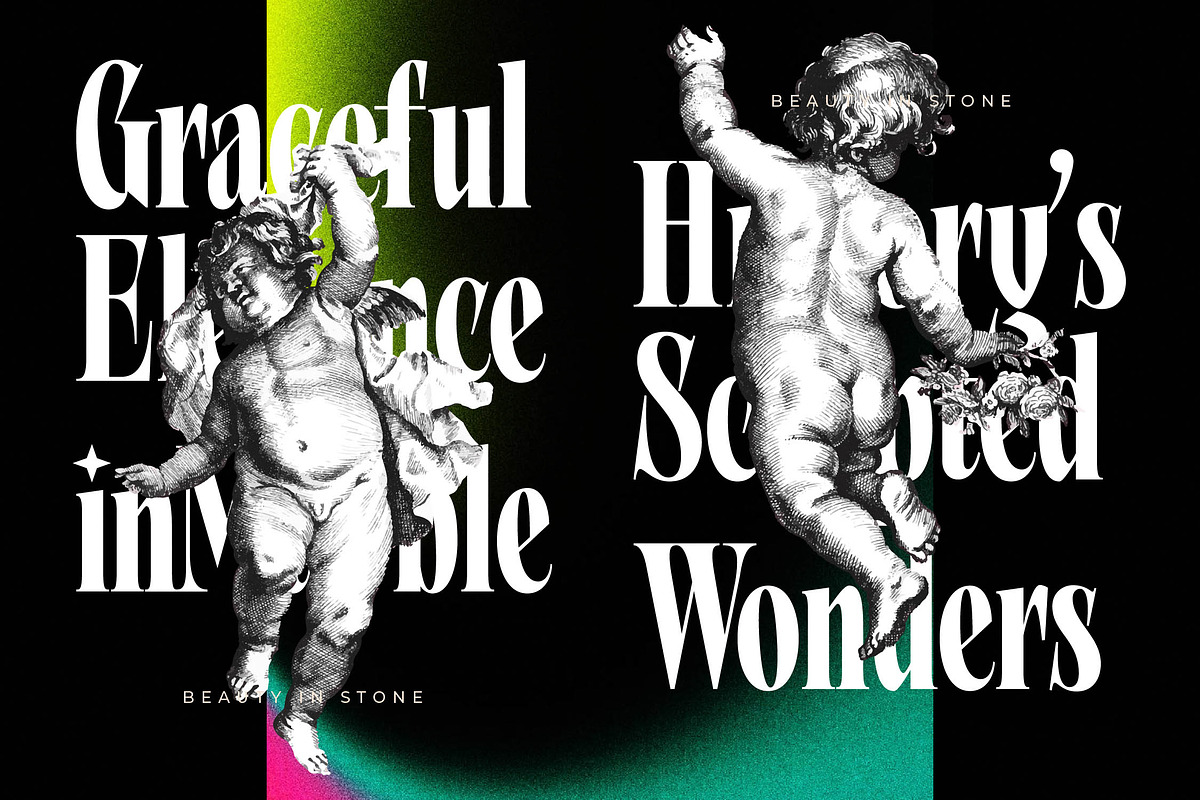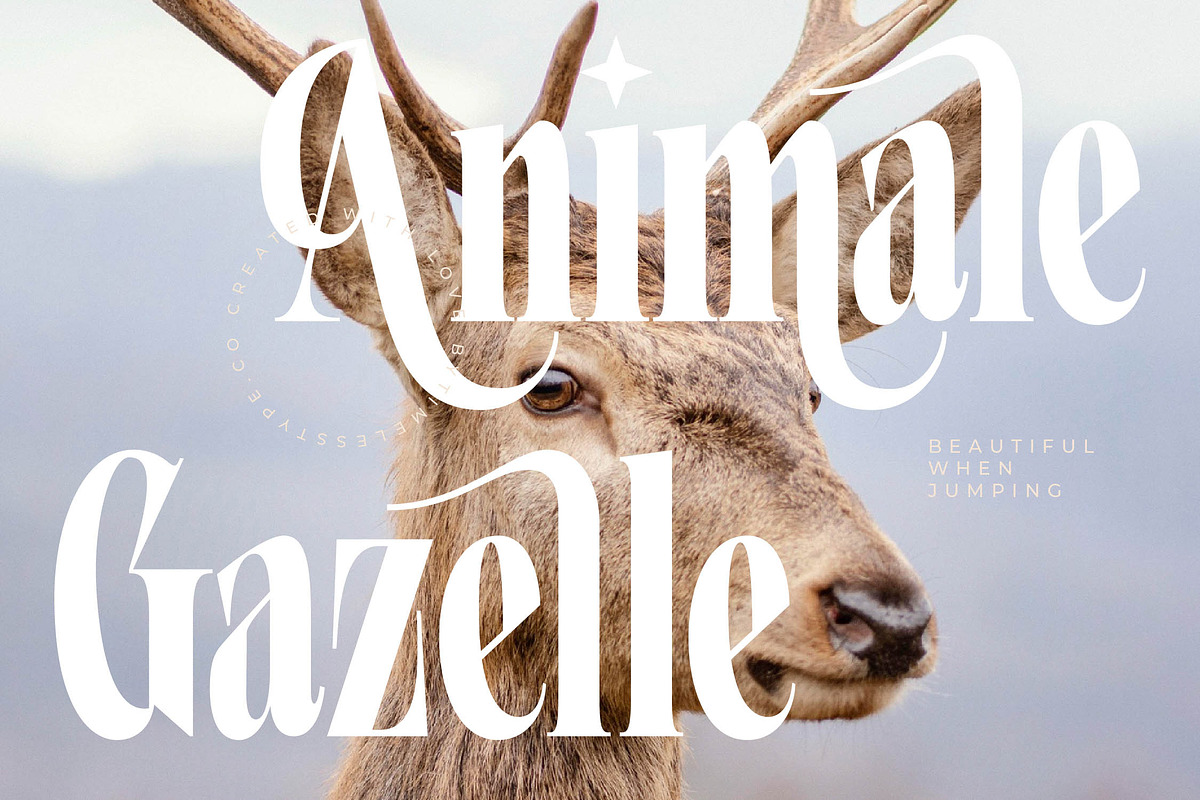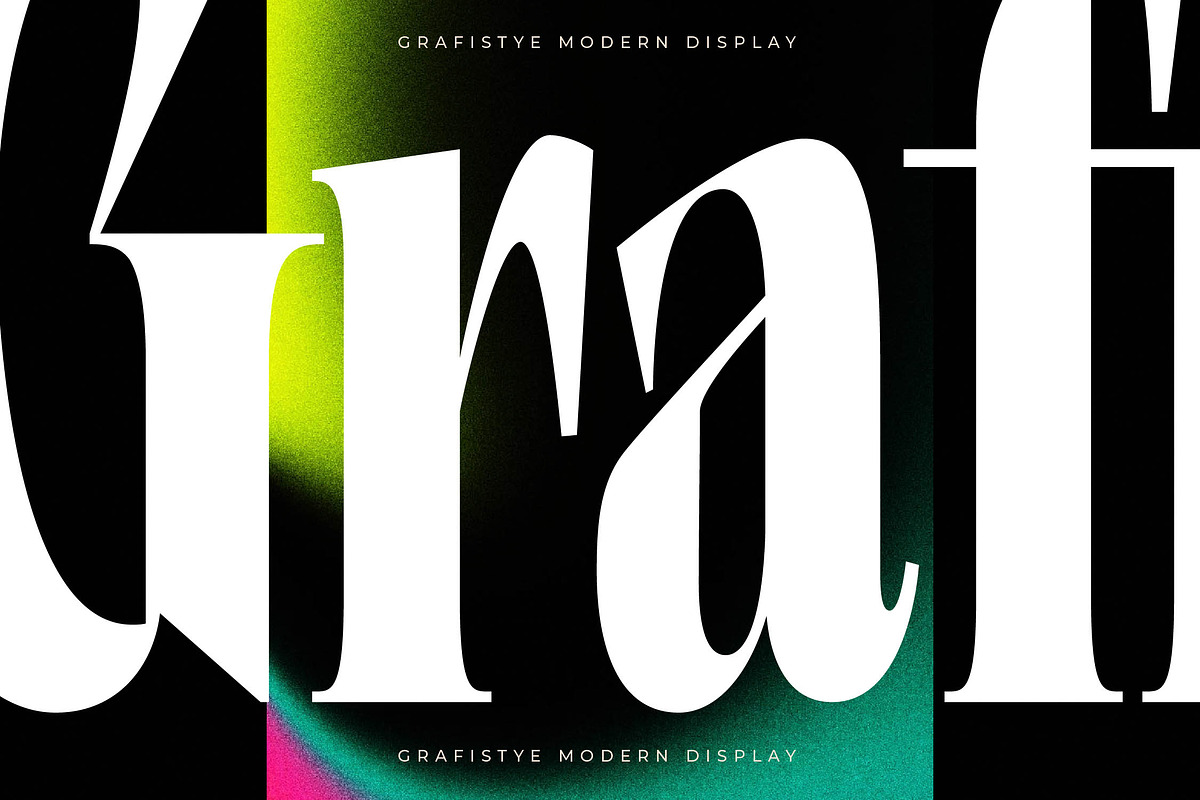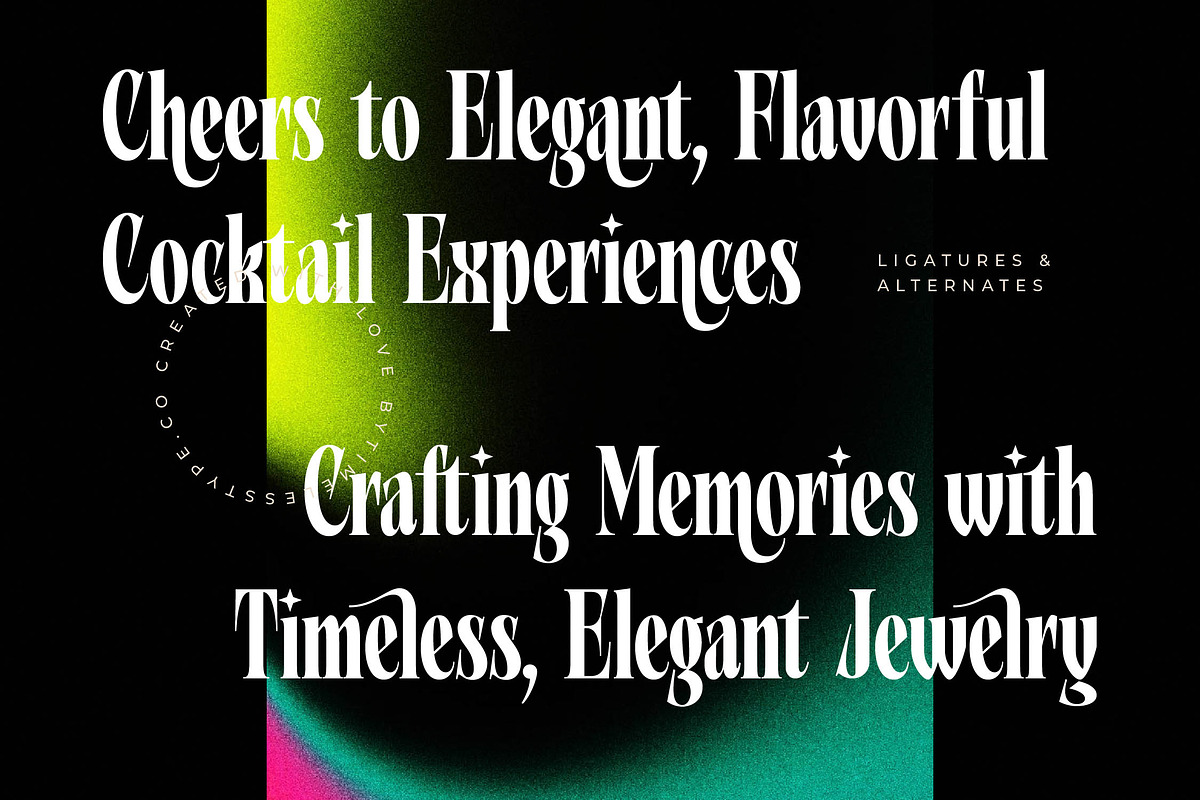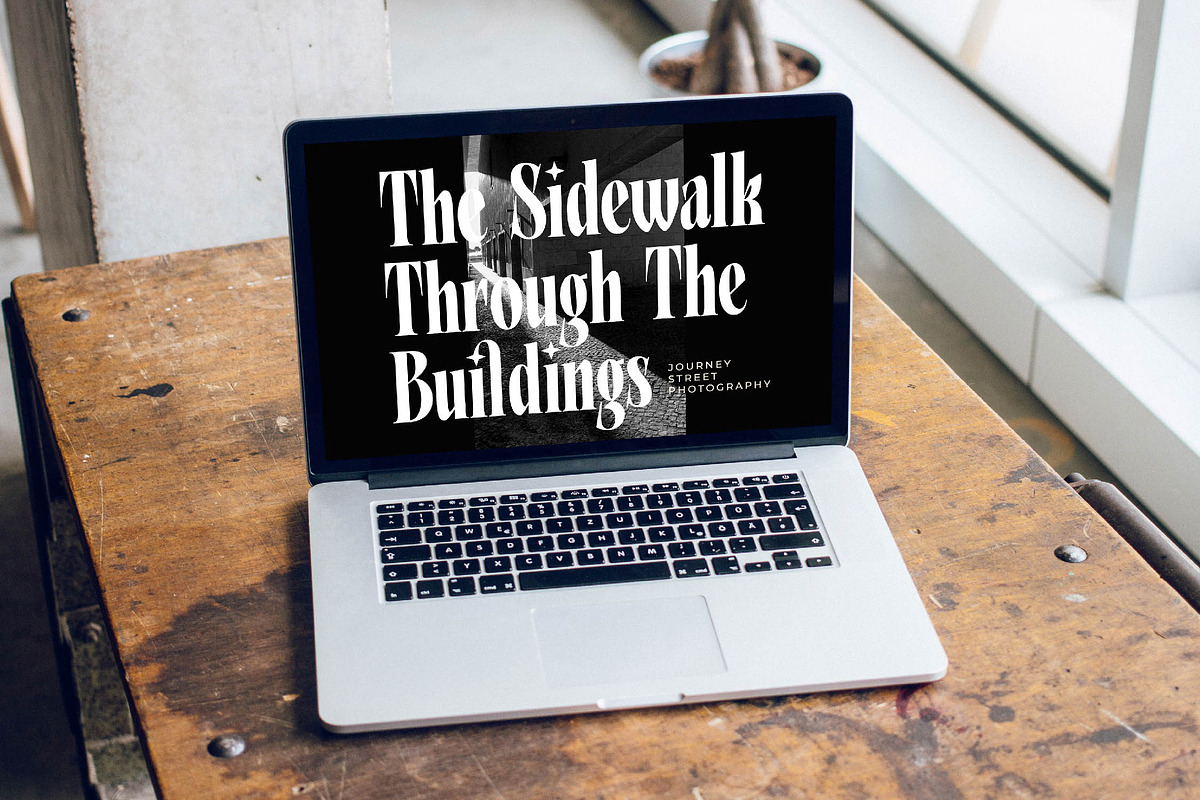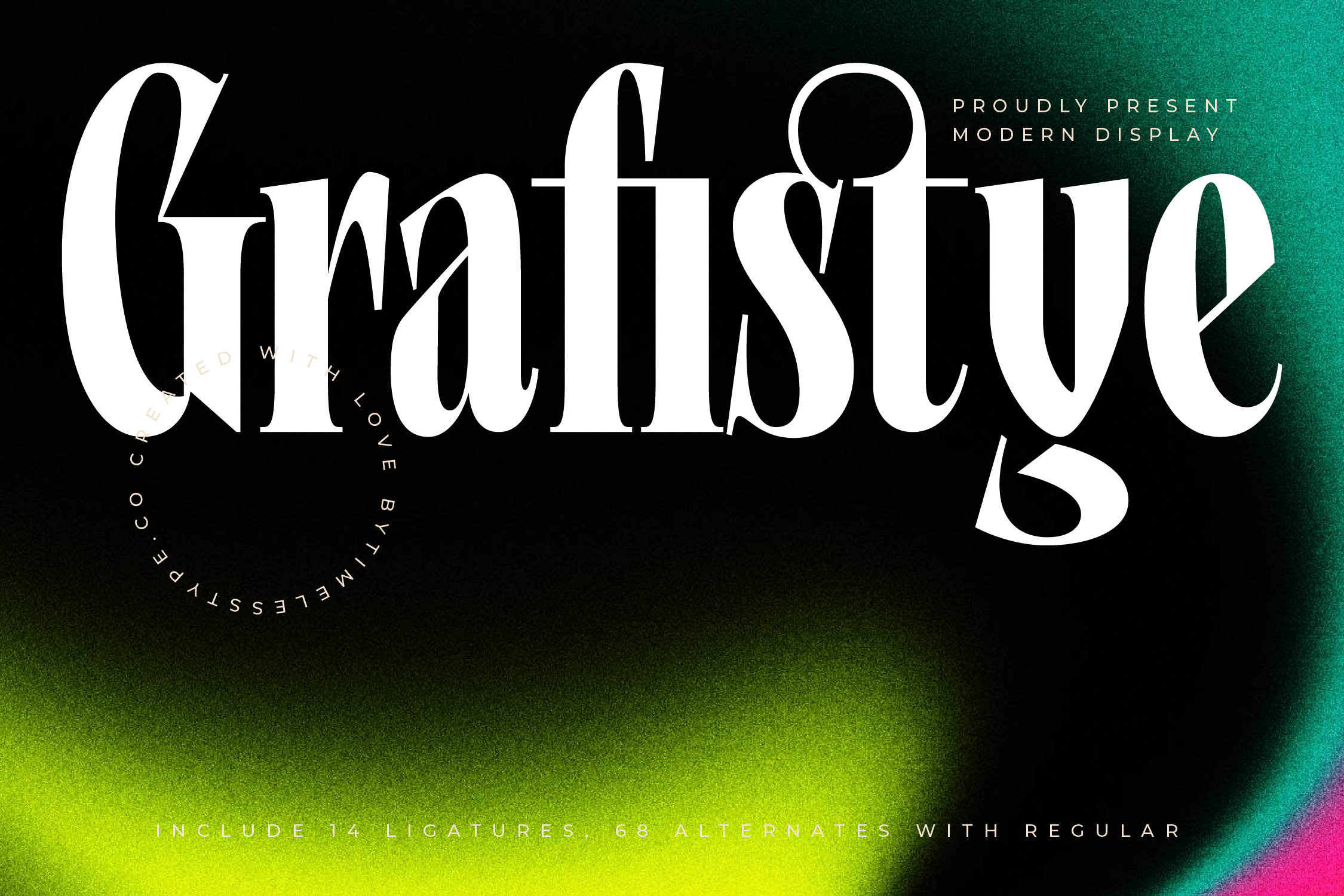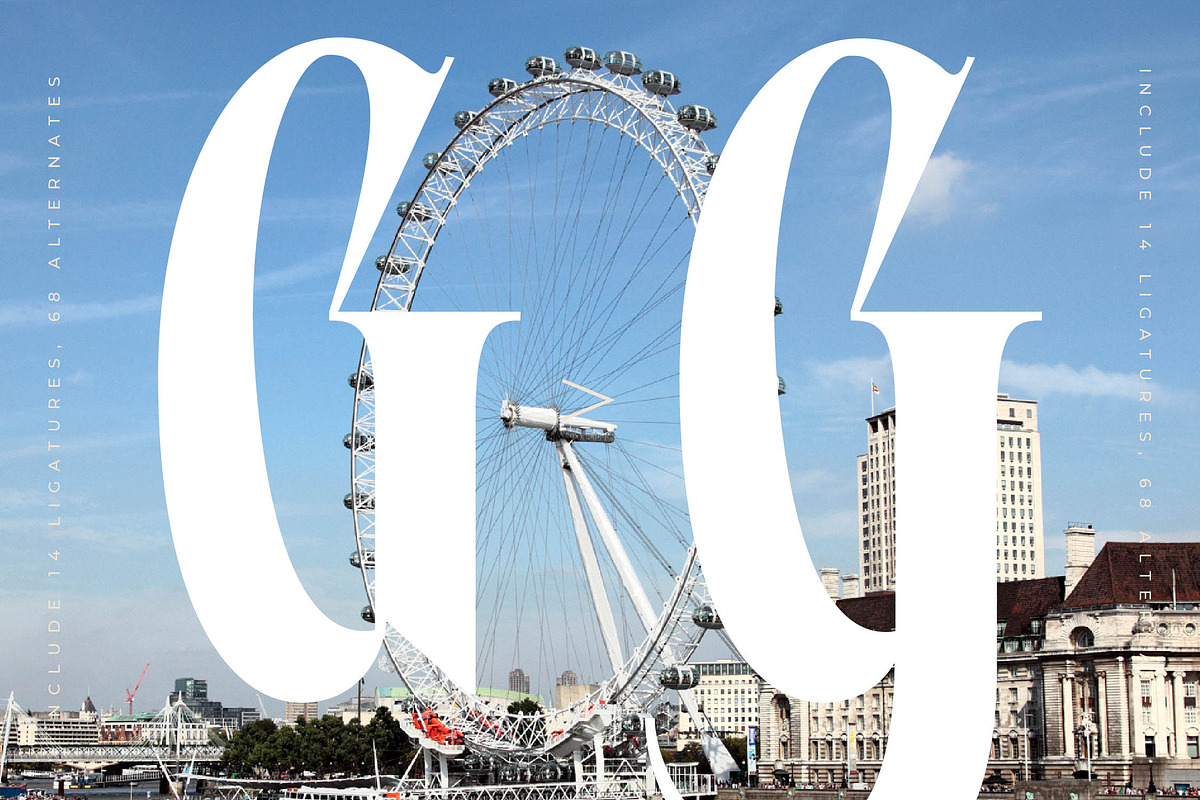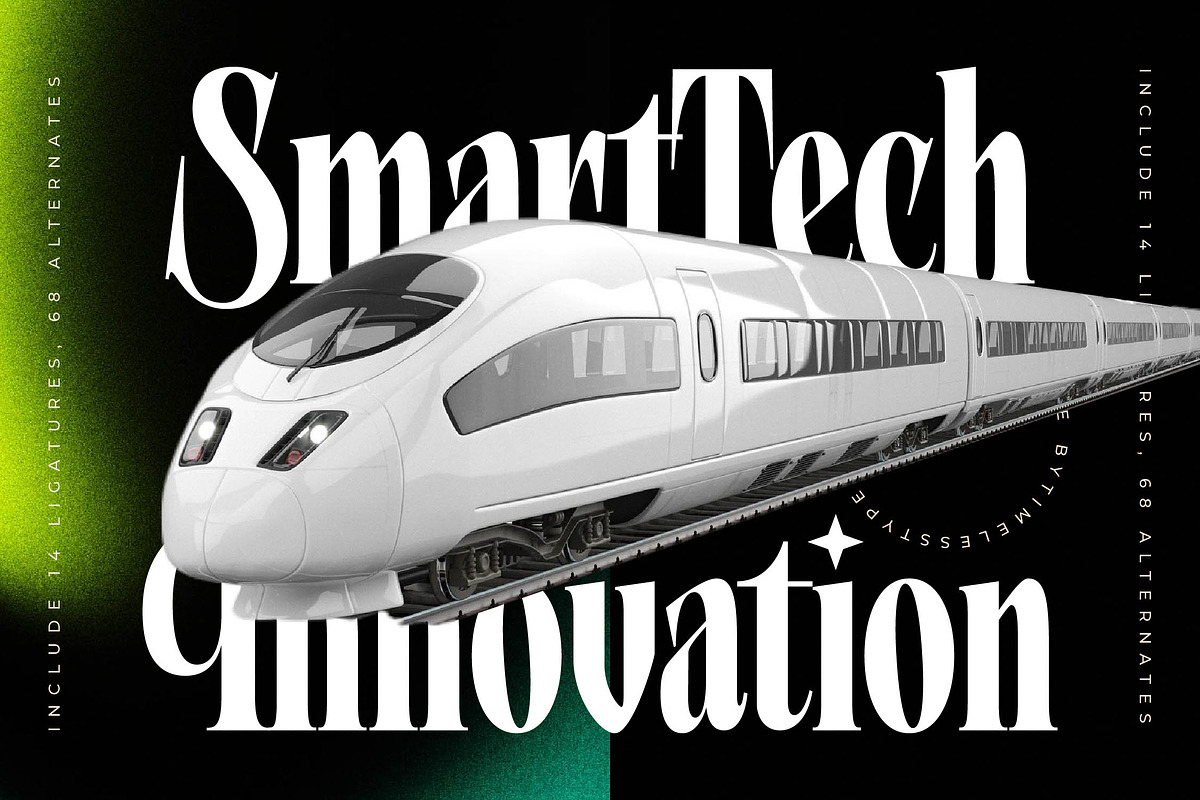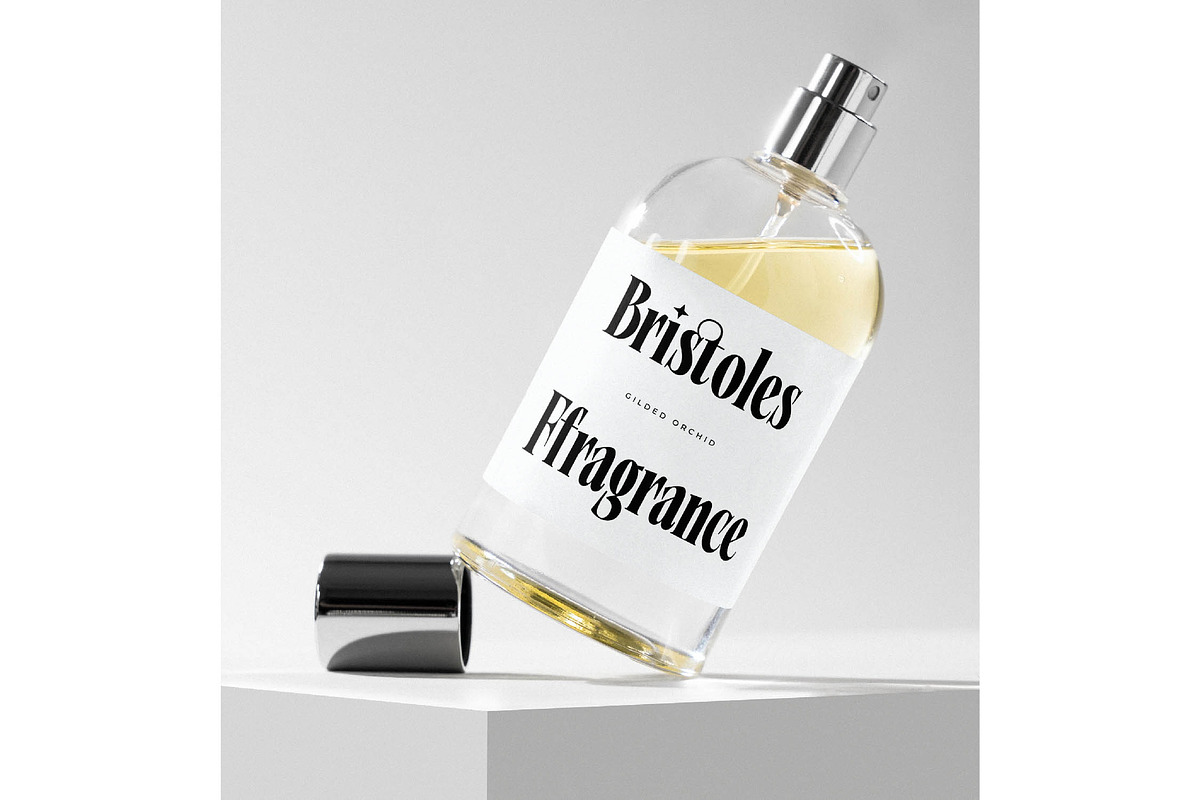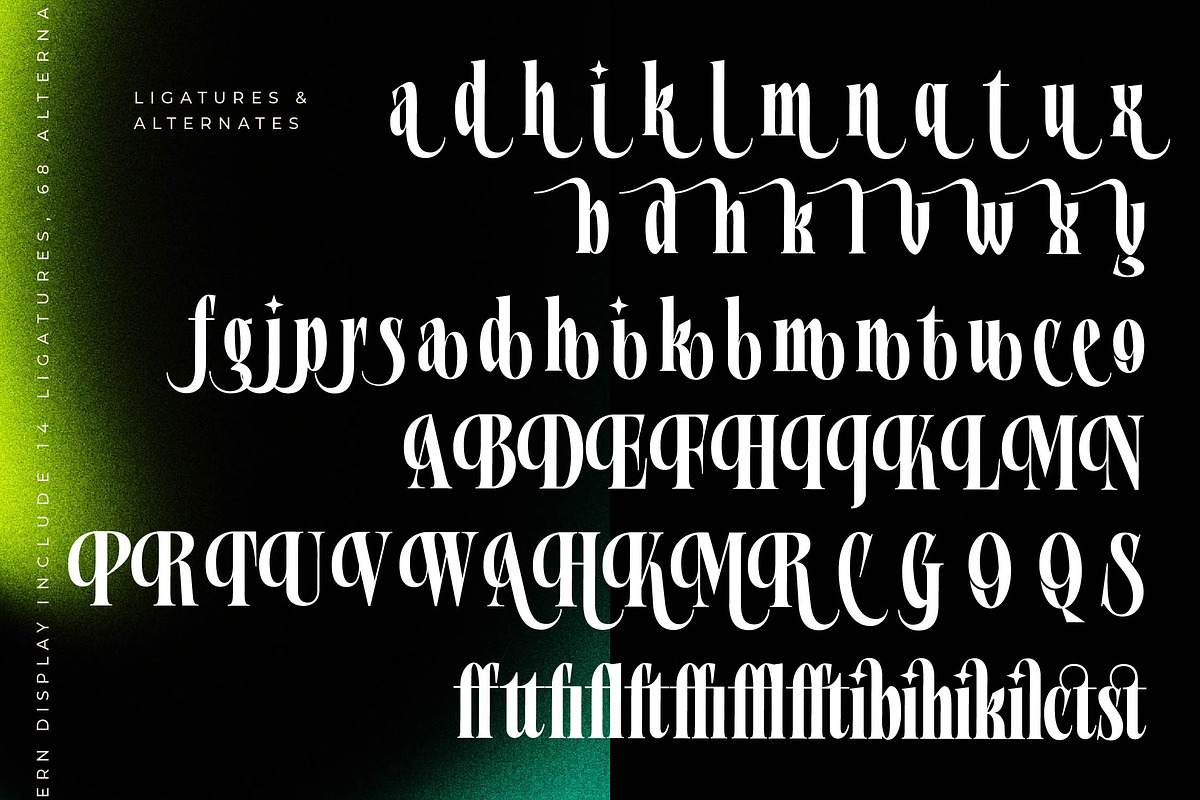
Grafistye Modern Display Serif Font
Step into a world where visual artistry meets sophisticated form with Grafistye. This typeface is a celebration of refined beauty, designed to command attention while maintaining a graceful presence on any canvas.
Inspired by the fluid movements of high-fashion textiles and the architectural precision of modern art galleries, this font captures the essence of timeless elegance. It breathes life into the space between classic letterforms and experimental contemporary silhouettes, evoking a sense of curated luxury and avant-garde spirit.
The personality of this typeface is defined by its modern serif display qualities and sharp, high-contrast serif strokes that exude confidence. As a premier choice for luxury typography, it functions as a high-impact editorial font that bridges the gap between traditional readability and a bold branding impact.
Perfectly aligned with the current modern serif trend, this typeface addresses the growing demand for character-driven typography in high-end markets. It stands at the forefront of editorial display fonts, offering designers a versatile tool to create layouts that feel both nostalgic and incredibly fresh.
Tailored for the discerning creative, this font is ideal for high-concept logo design and comprehensive visual branding projects. Whether used in high-fashion editorial spreads, bespoke product packaging, romantic wedding stationery, or bold fashion campaigns, it delivers a consistent and polished aesthetic.
This package is enriched with unique ligatures and creative alternates that allow for custom-tailored compositions. Featuring full multilingual support and a wide range of international characters, it ensures your message is accessible globally while maintaining its premium swashes and artistic integrity.
- Ligature 14 Alternate 68